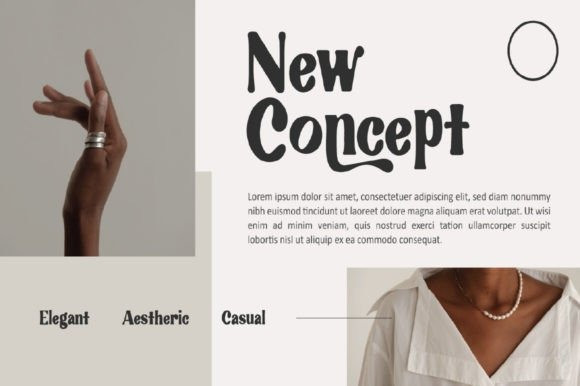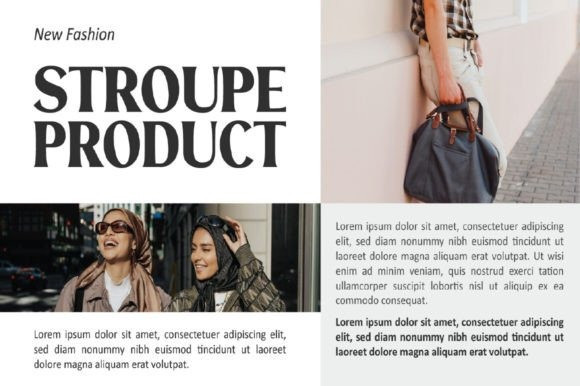
Rouge Vintage Font
Rouge Vintage Font is a modern serif font with a chic and feminine style that is perfect for your latest project. Rouge Vintage is perfect for branding projects, logos, wedding designs, social media posts, advertisements, product packaging, product designs, labels, photography, watermarks, invitations, stationery, and any projects that need handwriting taste.